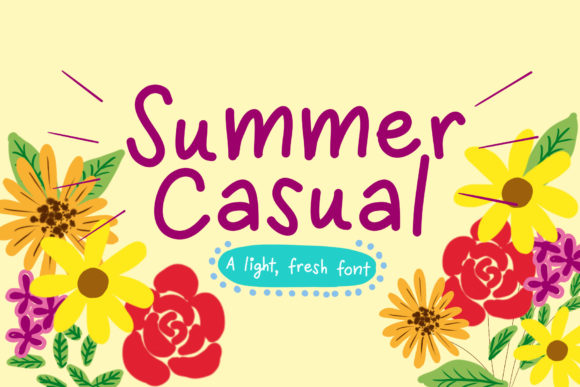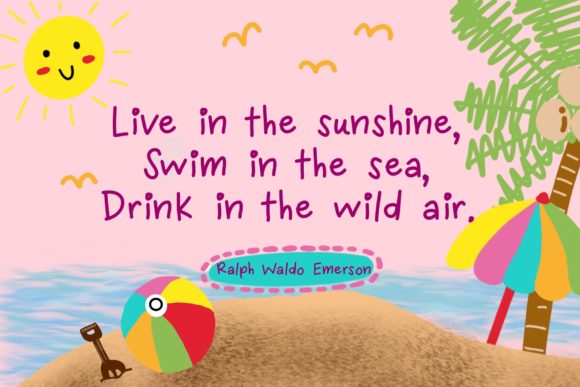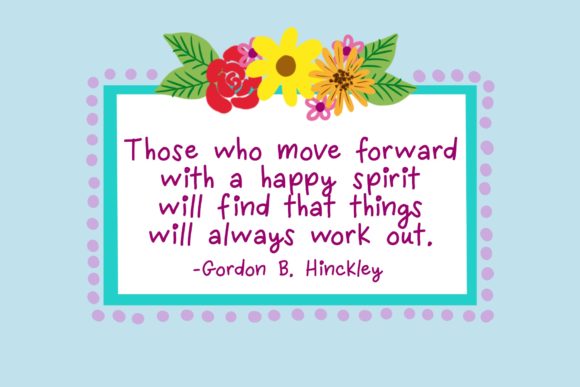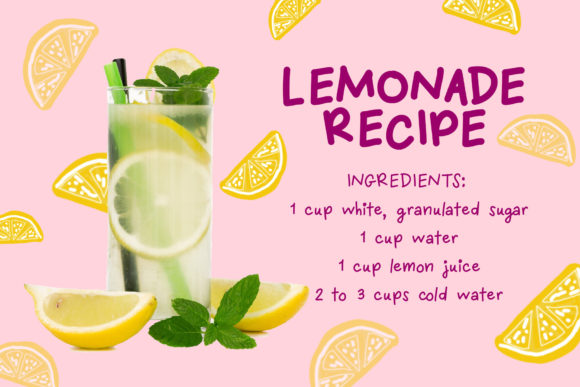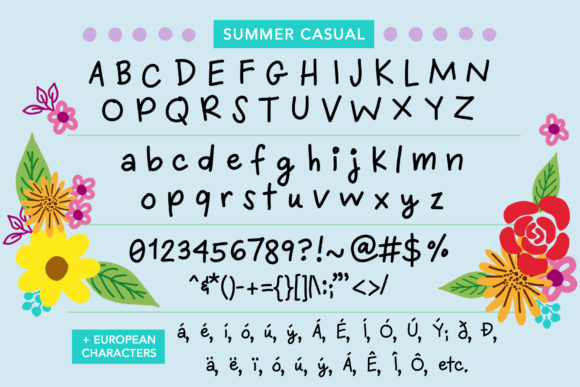
Summer Casual Font
About Summer Casual Font
Summer Casual embodies fun, quirkiness and authenticity. This enchanting handwritten font will turn any creative idea into a true standout.